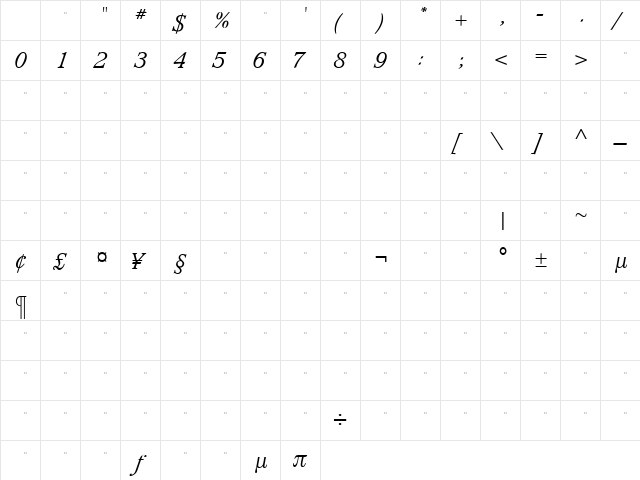
Complete WaverlyLightItalicTab Roman glyph index. Displaying only characters natively supported by WaverlyLightItalicTab Roman font.
WaverlyLightItalicTab is a composed and adaptable typeface that performs quietly and consistently across a wide range of design contexts. The slanted form adds forward momentum and visual energy. Its slender proportions lend an understated elegance to any composition.
Pro Tip: Use WaverlyLightItalicTab for emphasis, pull quotes, and subheadings where its slanted energy can add rhythm to the layout.